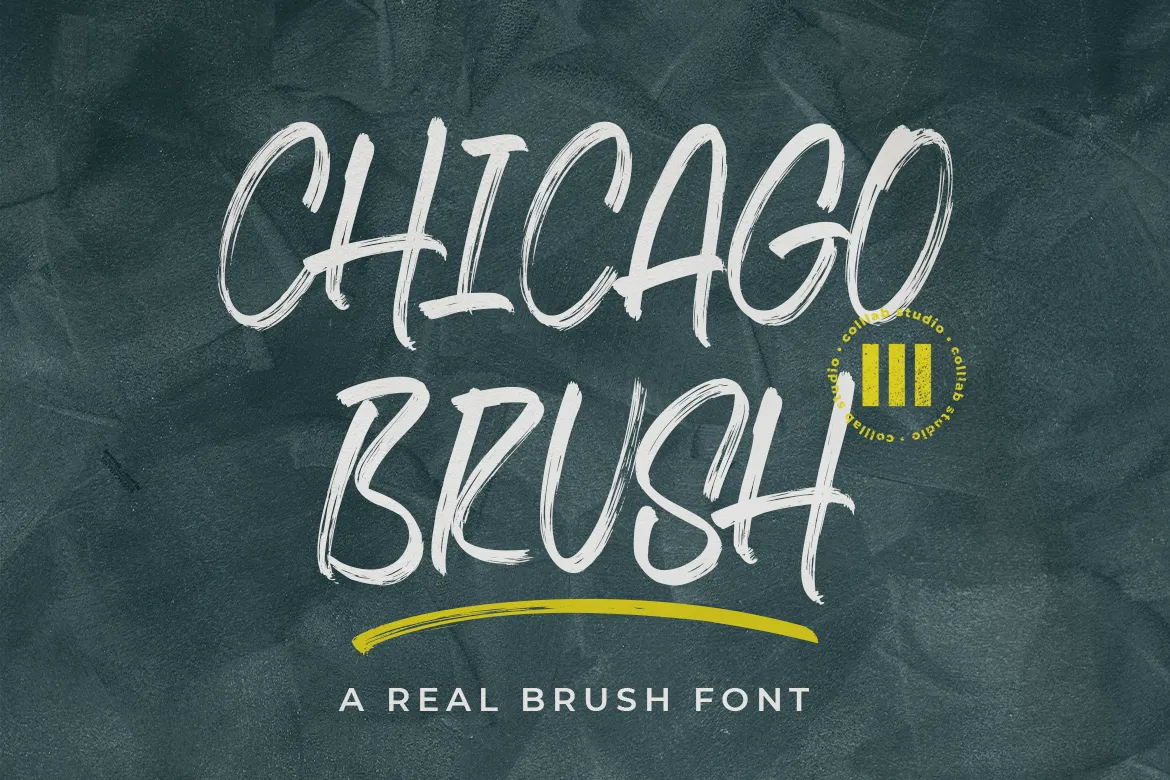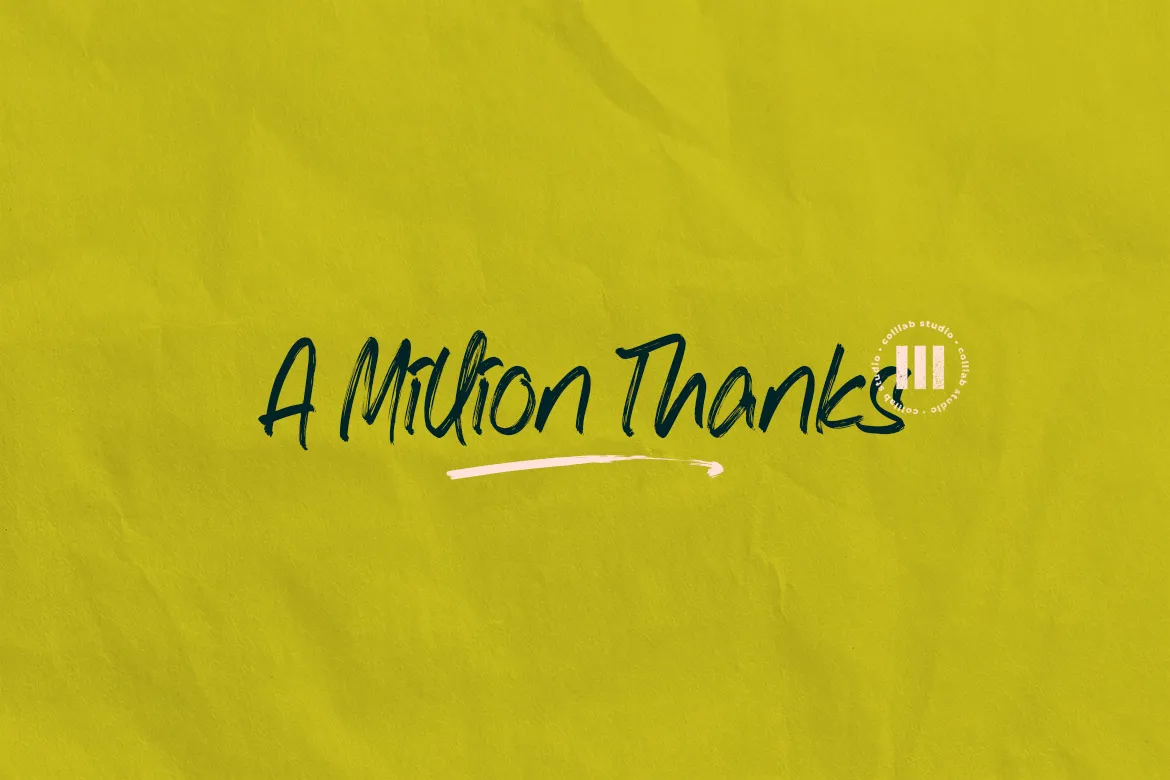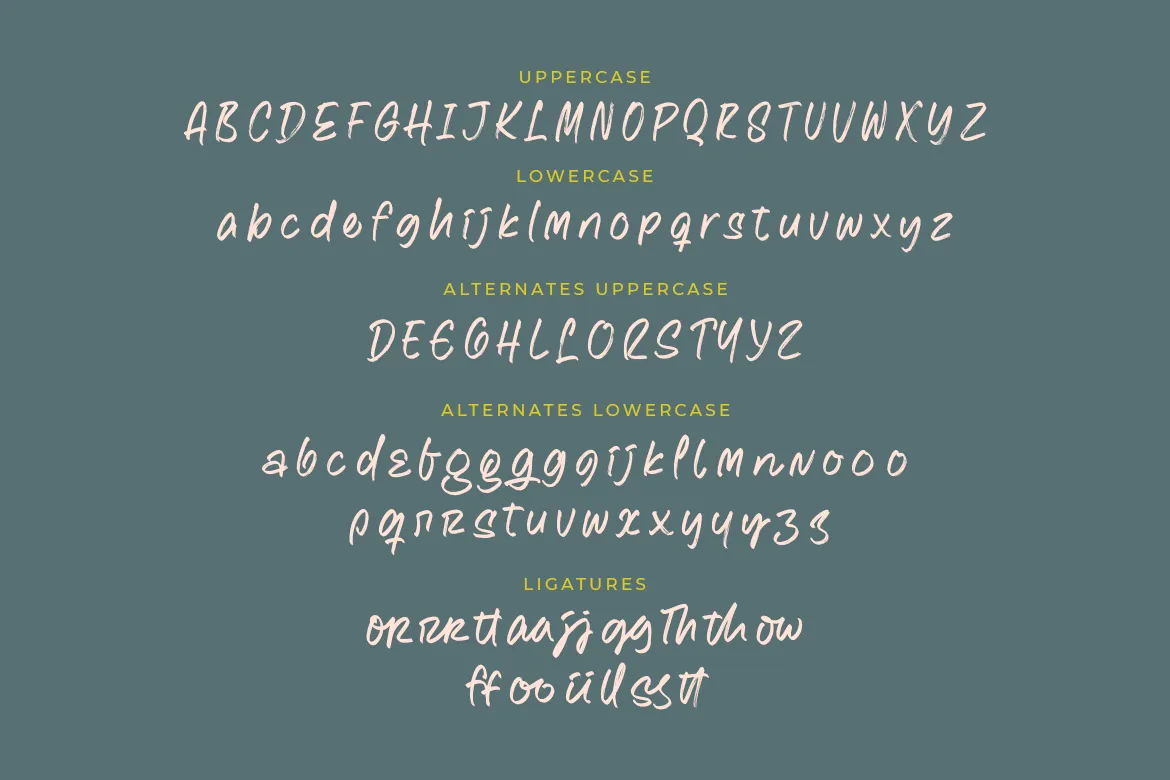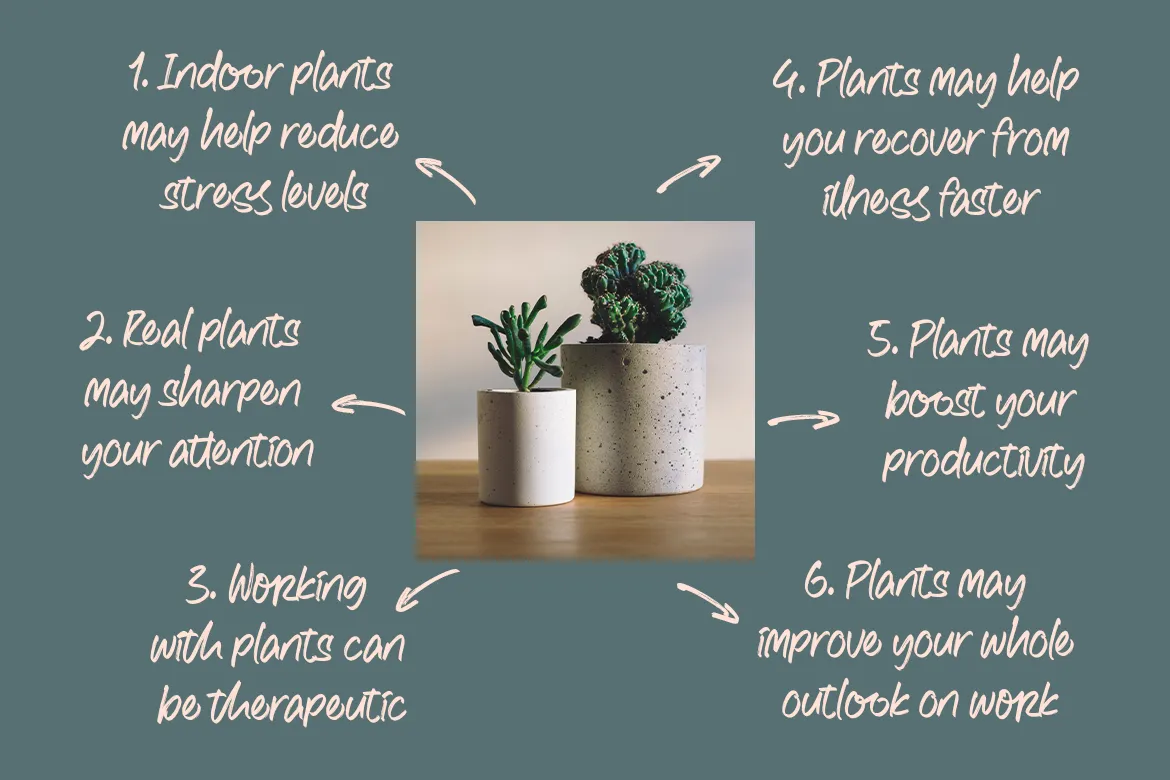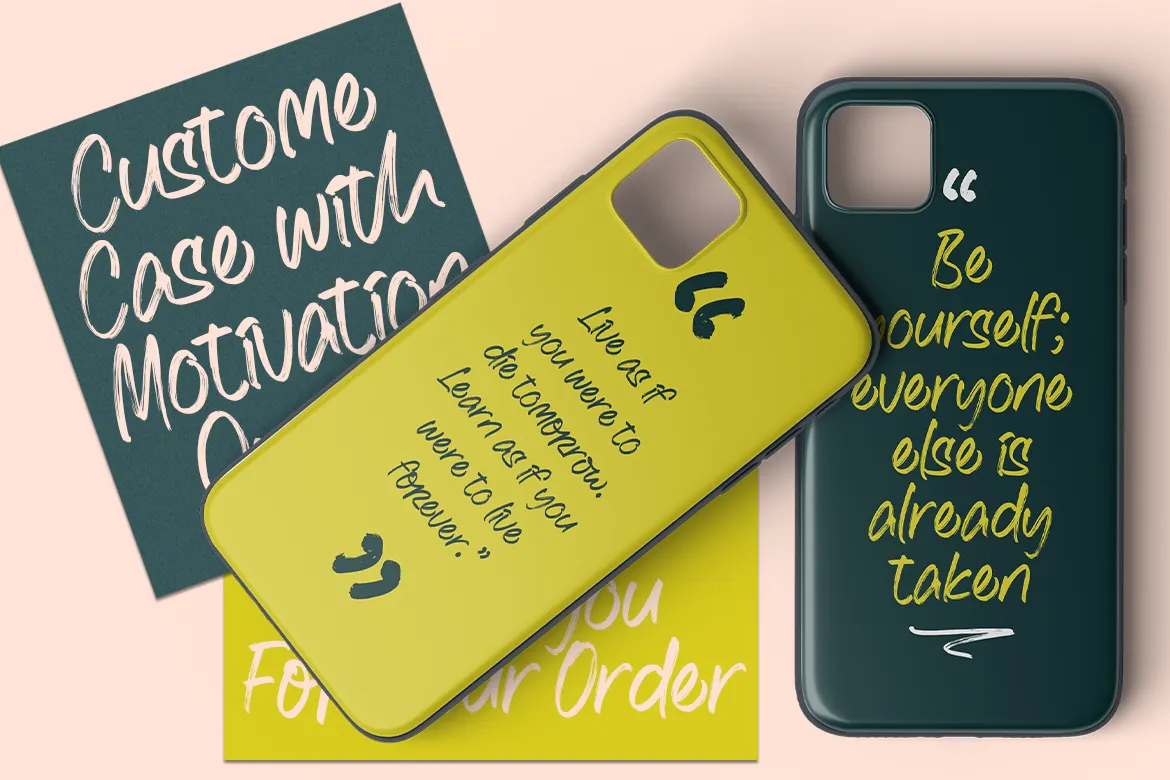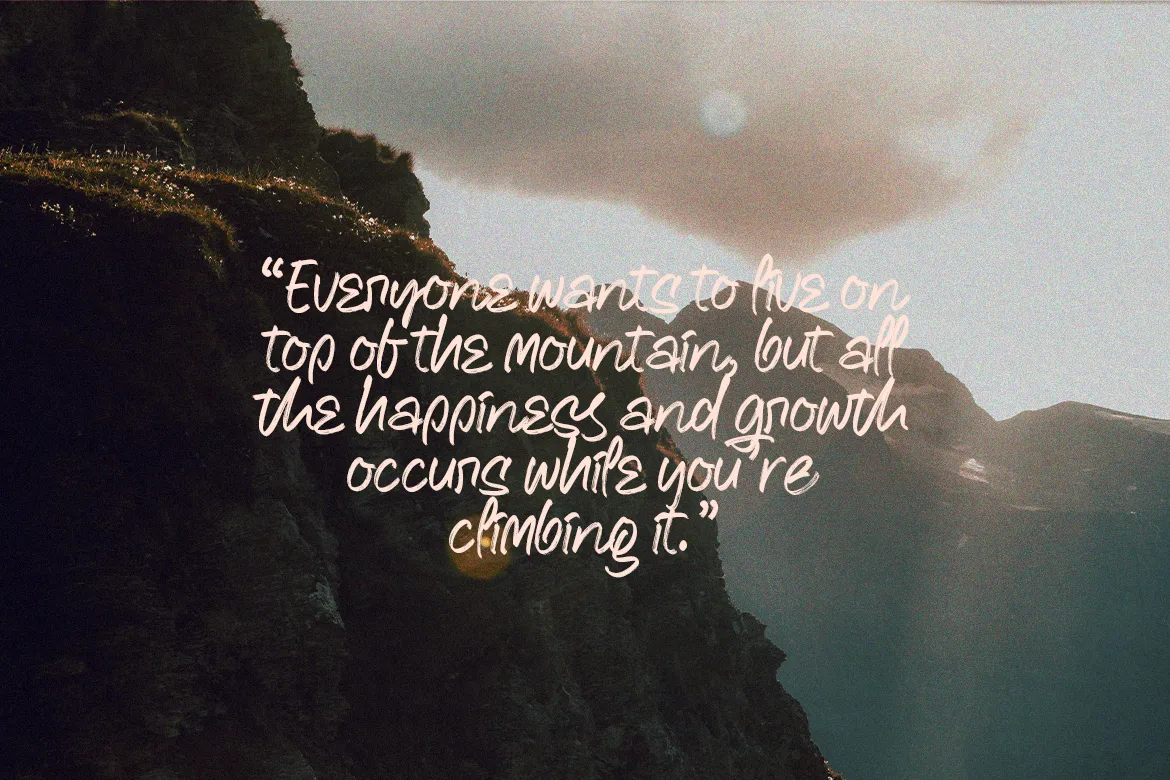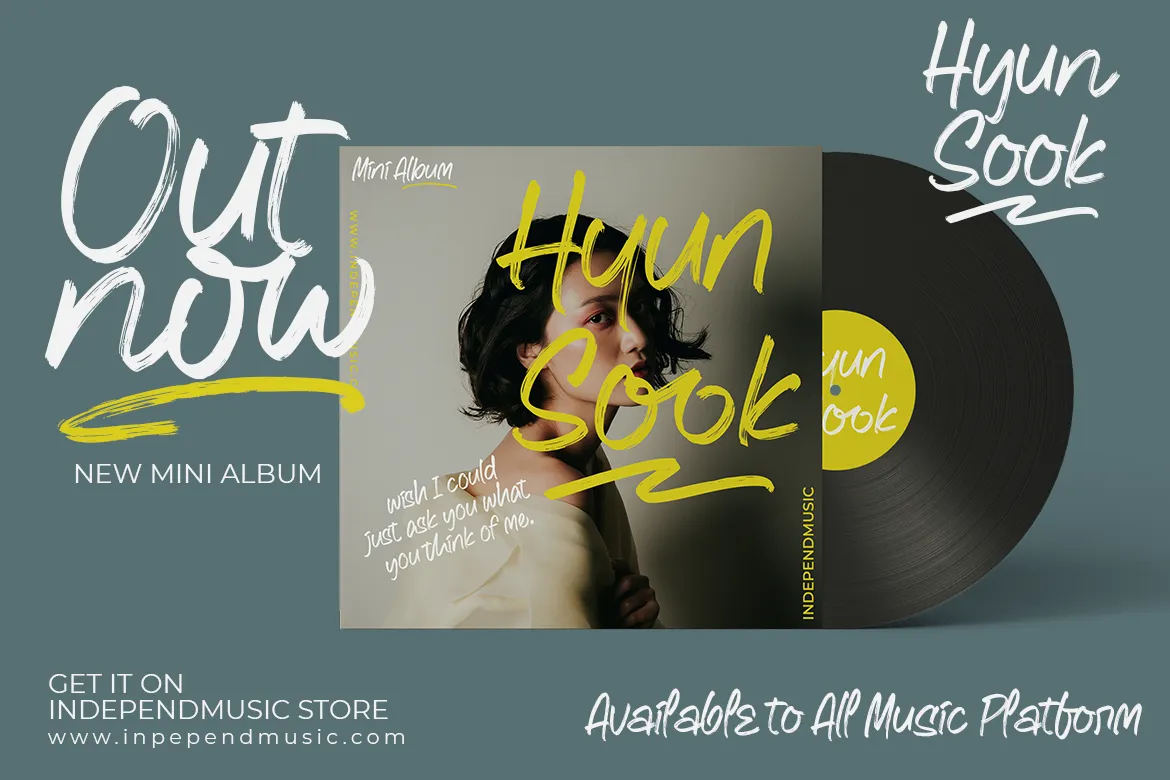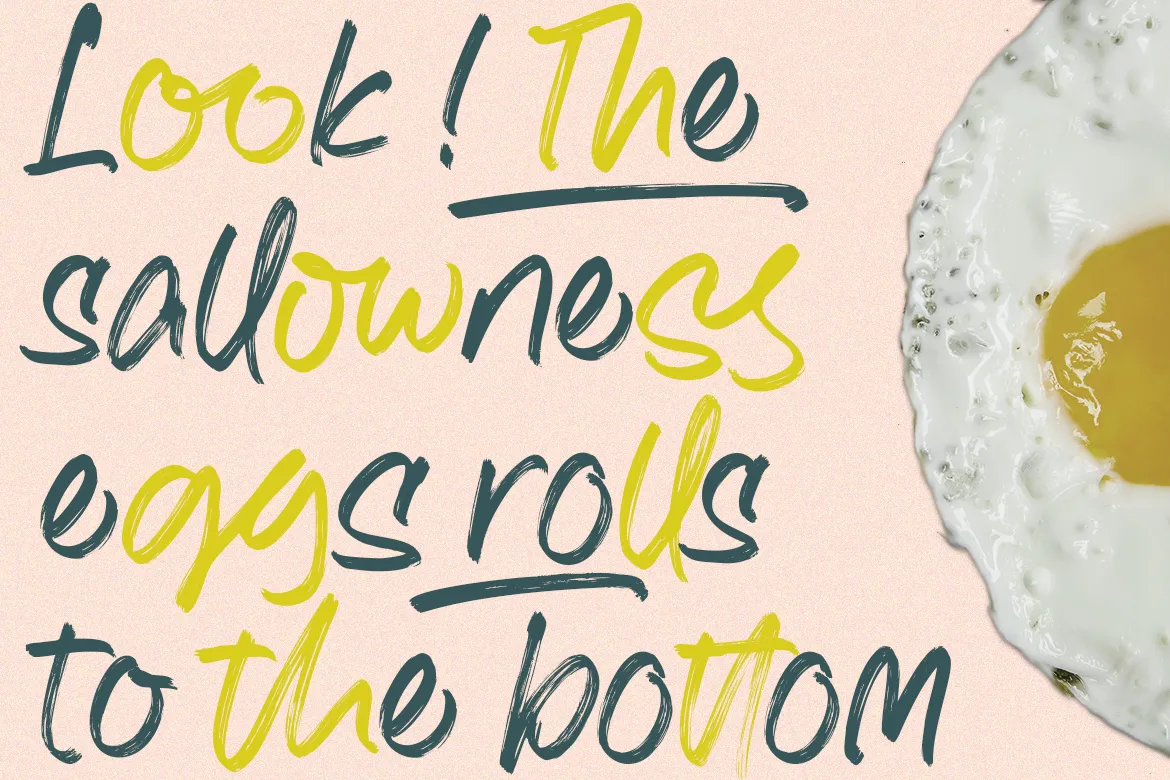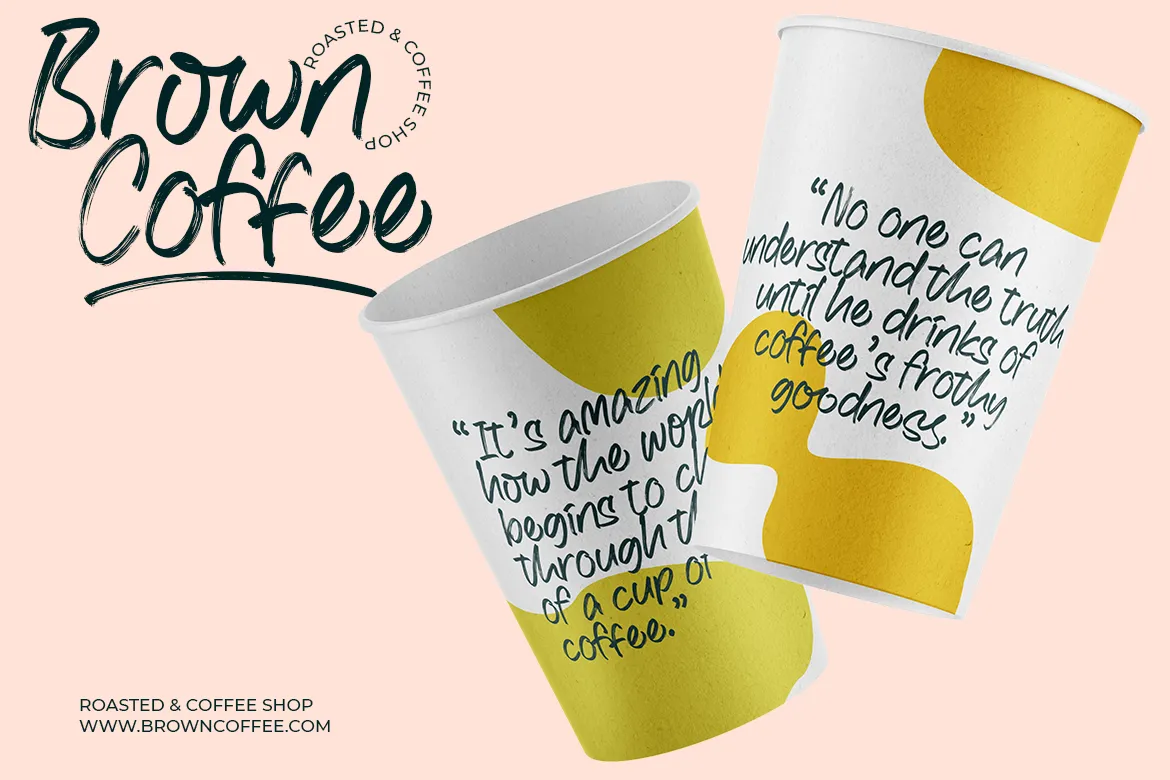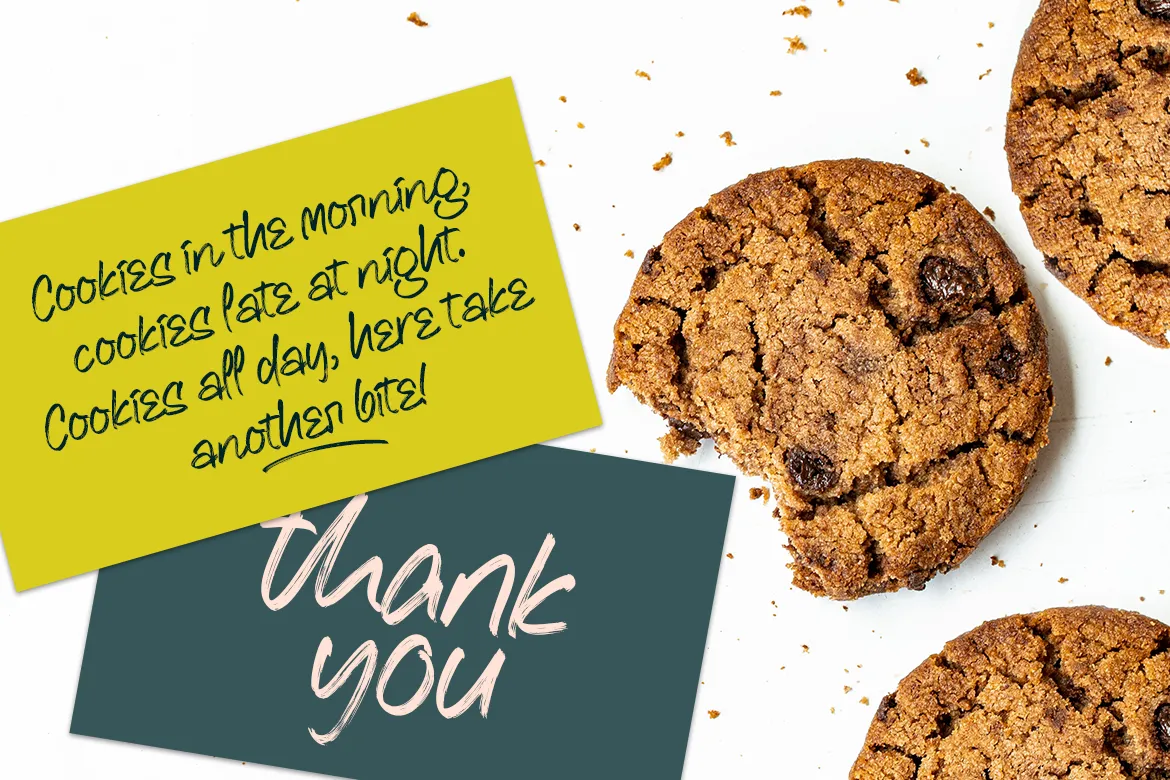
If you’re looking for a hand-drawn font to help craft a unique statement piece, you’ve probably been spending hours looking for the perfect brush font.
The problem with most brush fonts is that they’re not actually made from real brushes – they look like they’ve been artificially drawn by a machine.
There’s now a high-quality alternative available. We are proud to introduce our new, very high resolution Chicago Brush font – the result of our meticulous process of digitizing hand-drawn typefaces and then optimizing them through our exclusive, innovative technology.
That’s why we created Chicago Brush, a font made from a real brush. Use it to create logos, names and signage. It will look hand lettered, like you really worked on those letters manually.